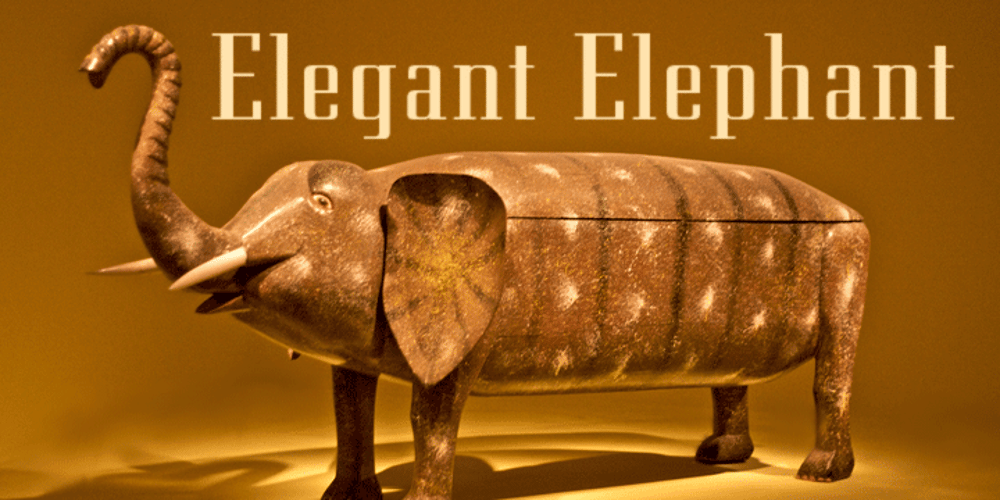
Eden CT Font Family was designed by Jason Castle and published by CastleType. Eden CT contains 3 styles and family package options. Eden Light, originally designed by the American type designer Robert H. Middleton in 1934, was commissioned by Publish magazine for a redesign in 1990. When I found a specimen of Eden Bold a couple years later, I decided to digitize it also. Subsequently, I created a Medium weight. Very squared and compact with thin slab serifs, Eden includes support of all European languages that use the Latin alphabet.